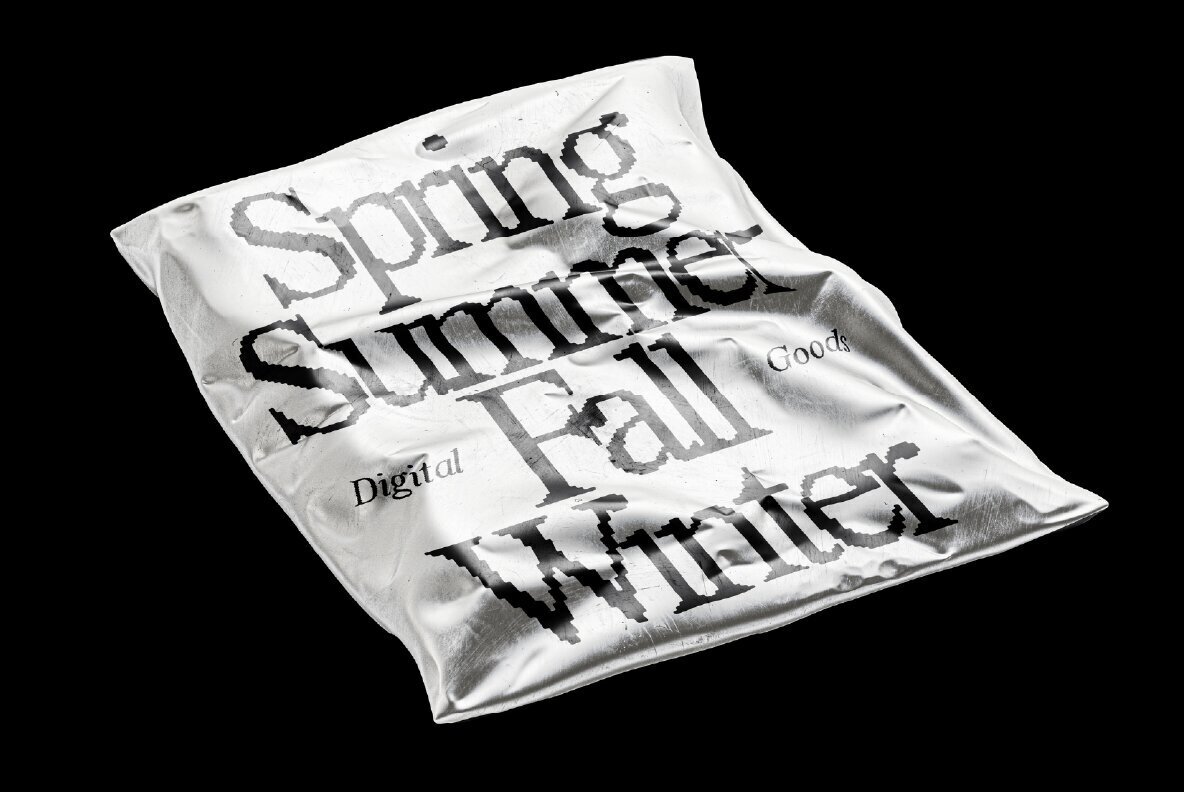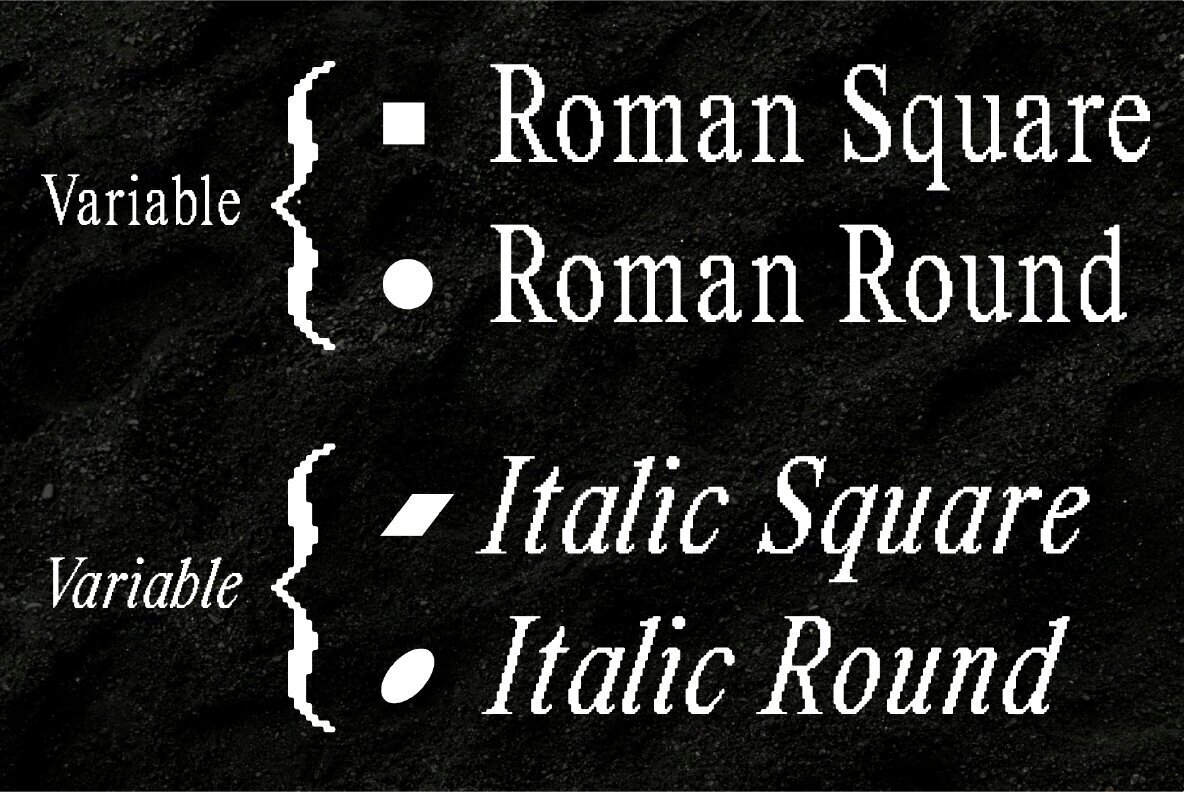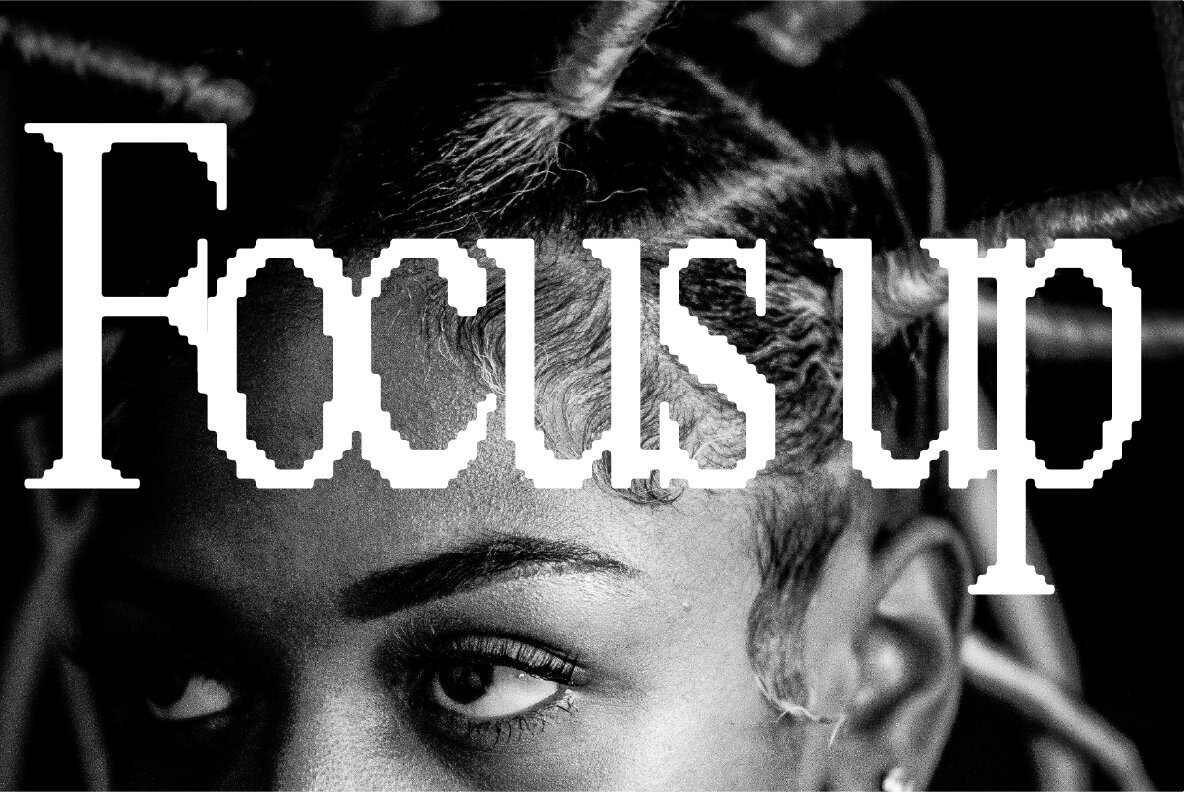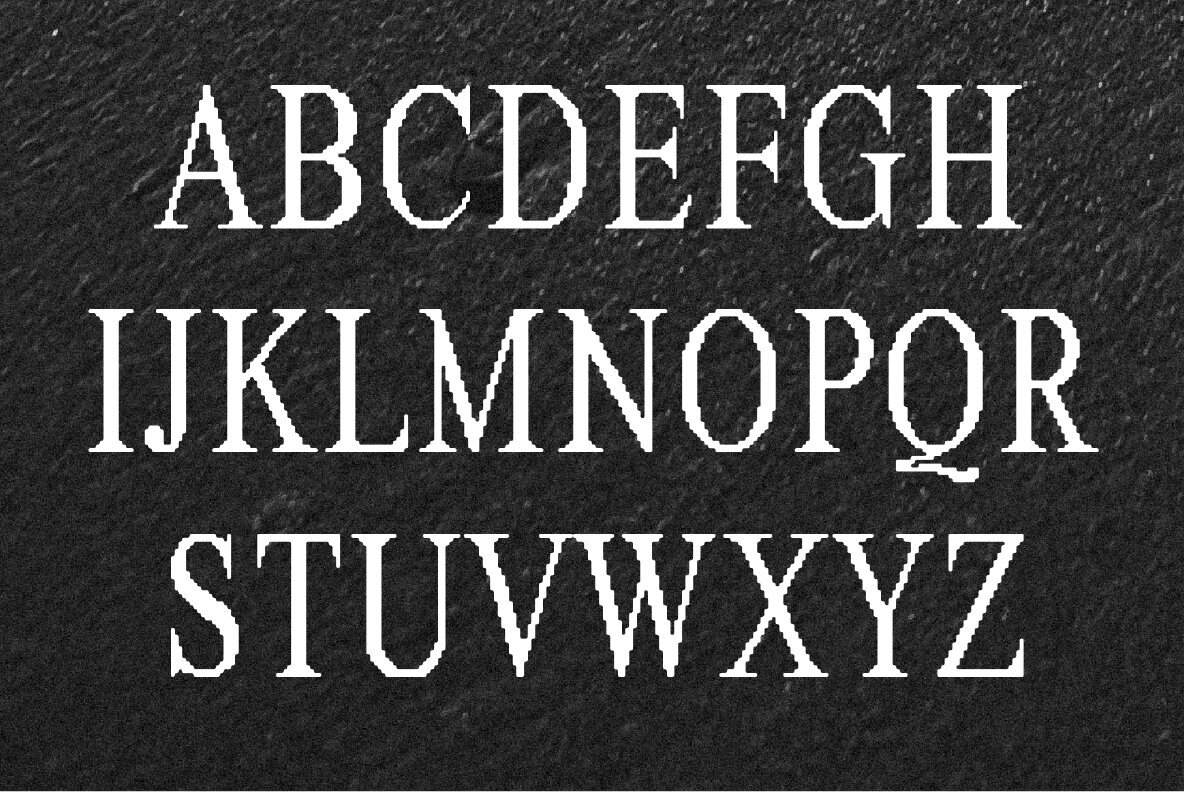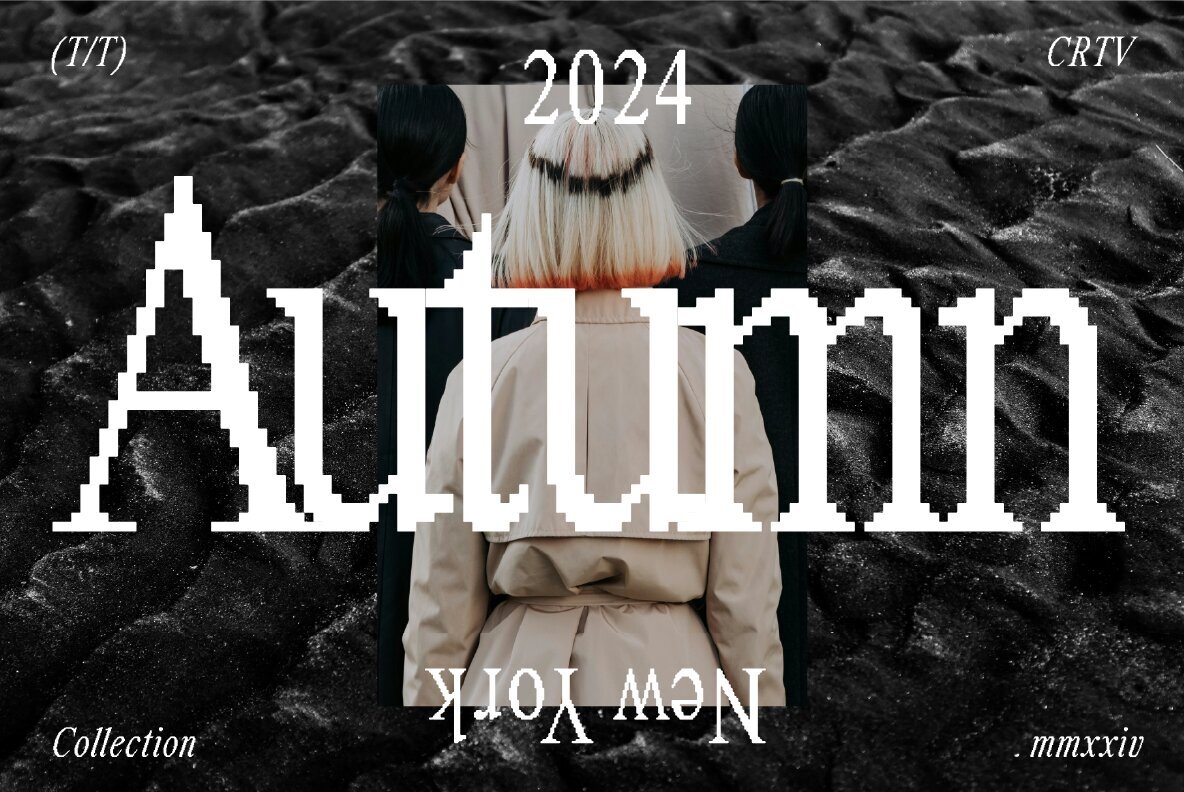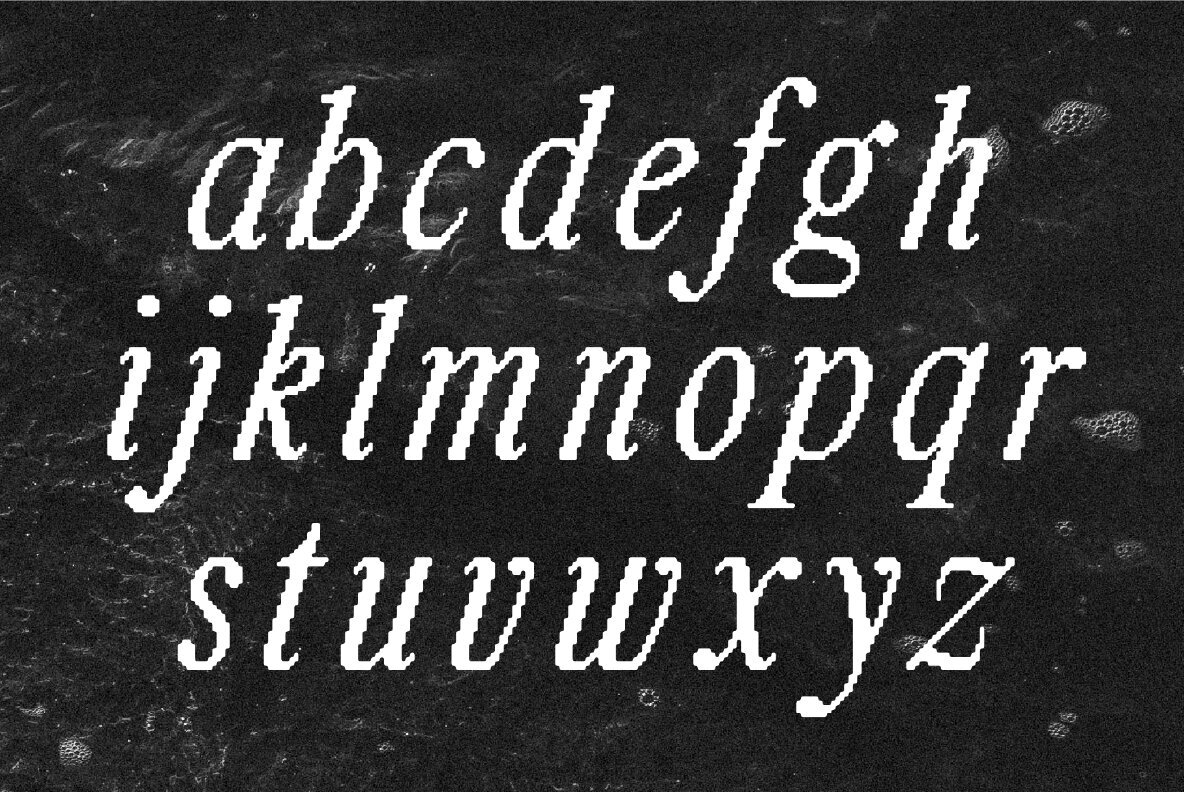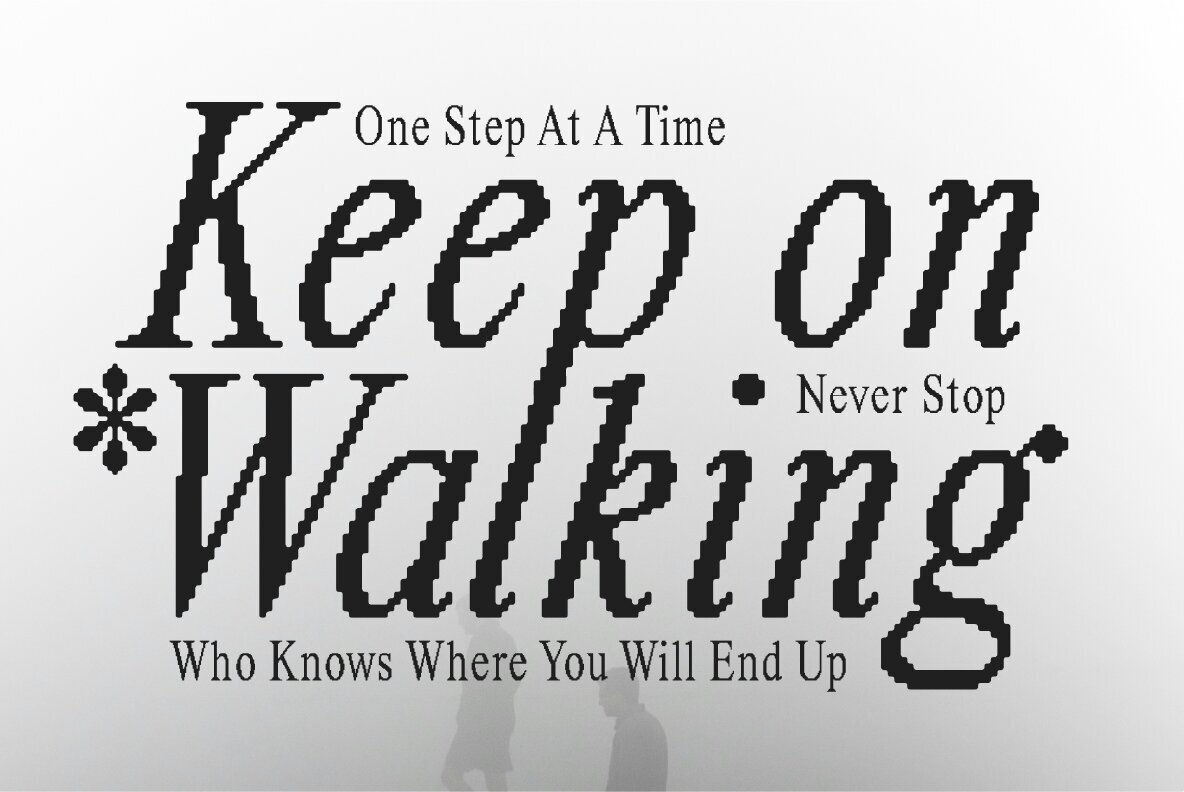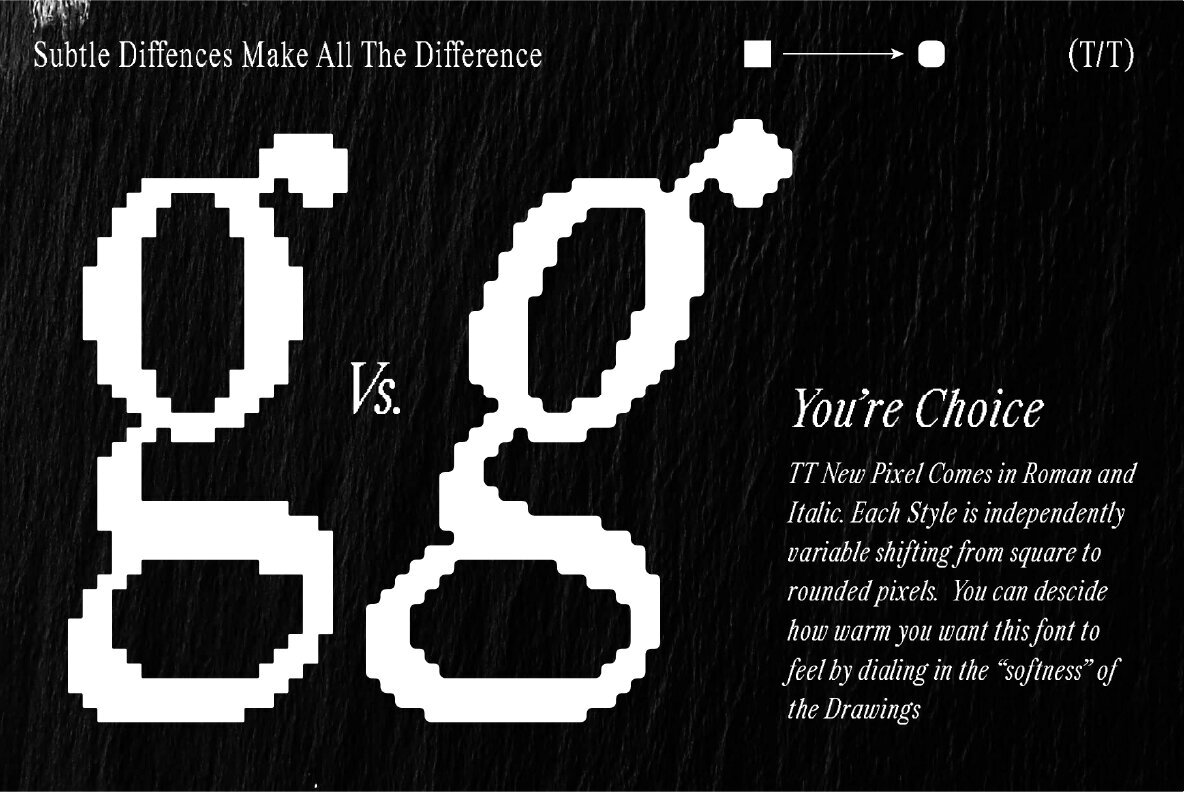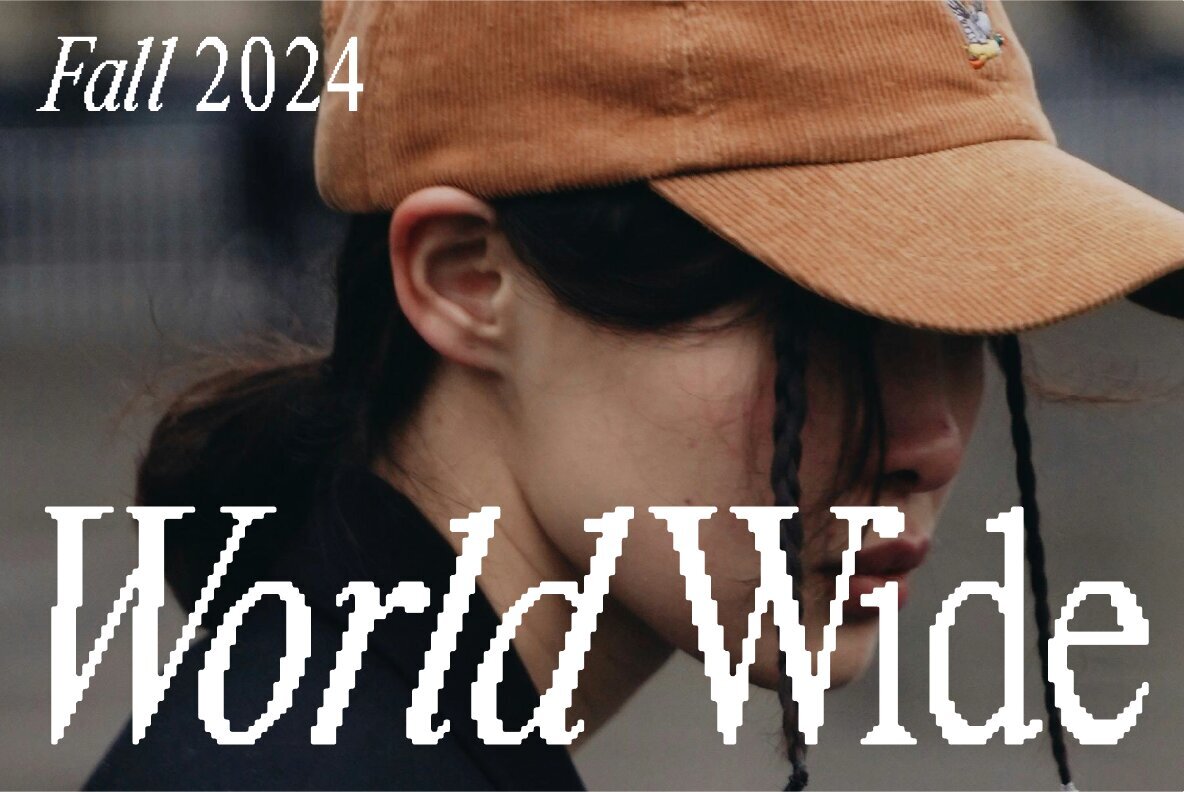
That That New Pixel Font
This Retro Pixel Font is not your average Pixel Font. That That New Pixel Is variable so you can ad some roundness to the letters. This Font comes in roman and italic. It is perfect for giving your retro or contemporary design work an elevated look that most pixel based font miss. Perfect for Posters, or magazines, Products, logos, branding, social media or whatever else you are looking to give some retro warmth to. Font Includes